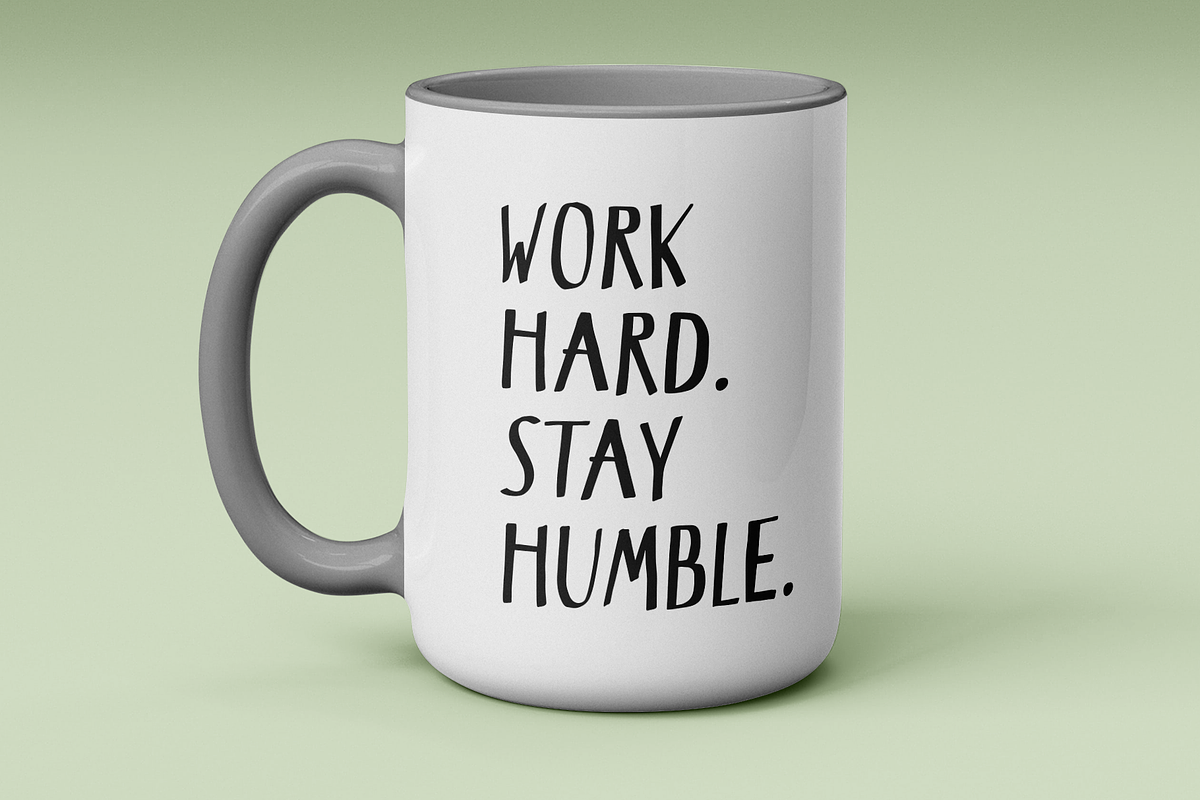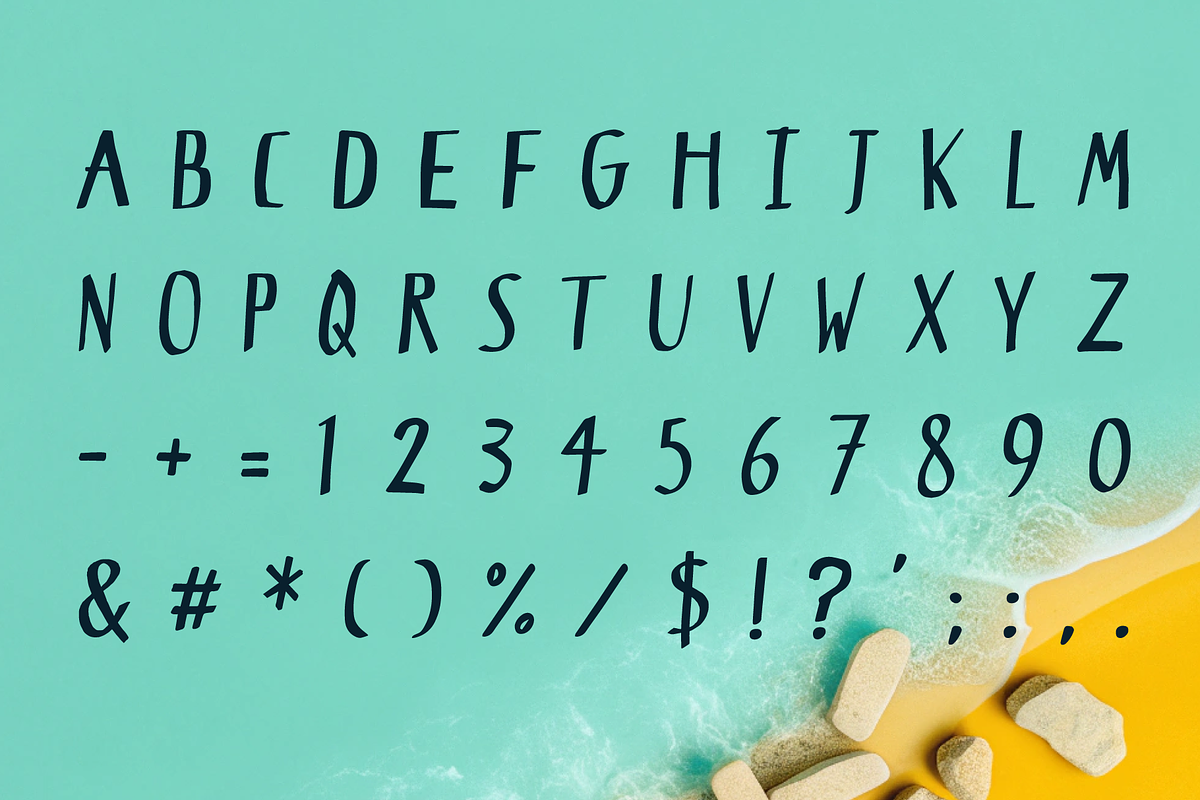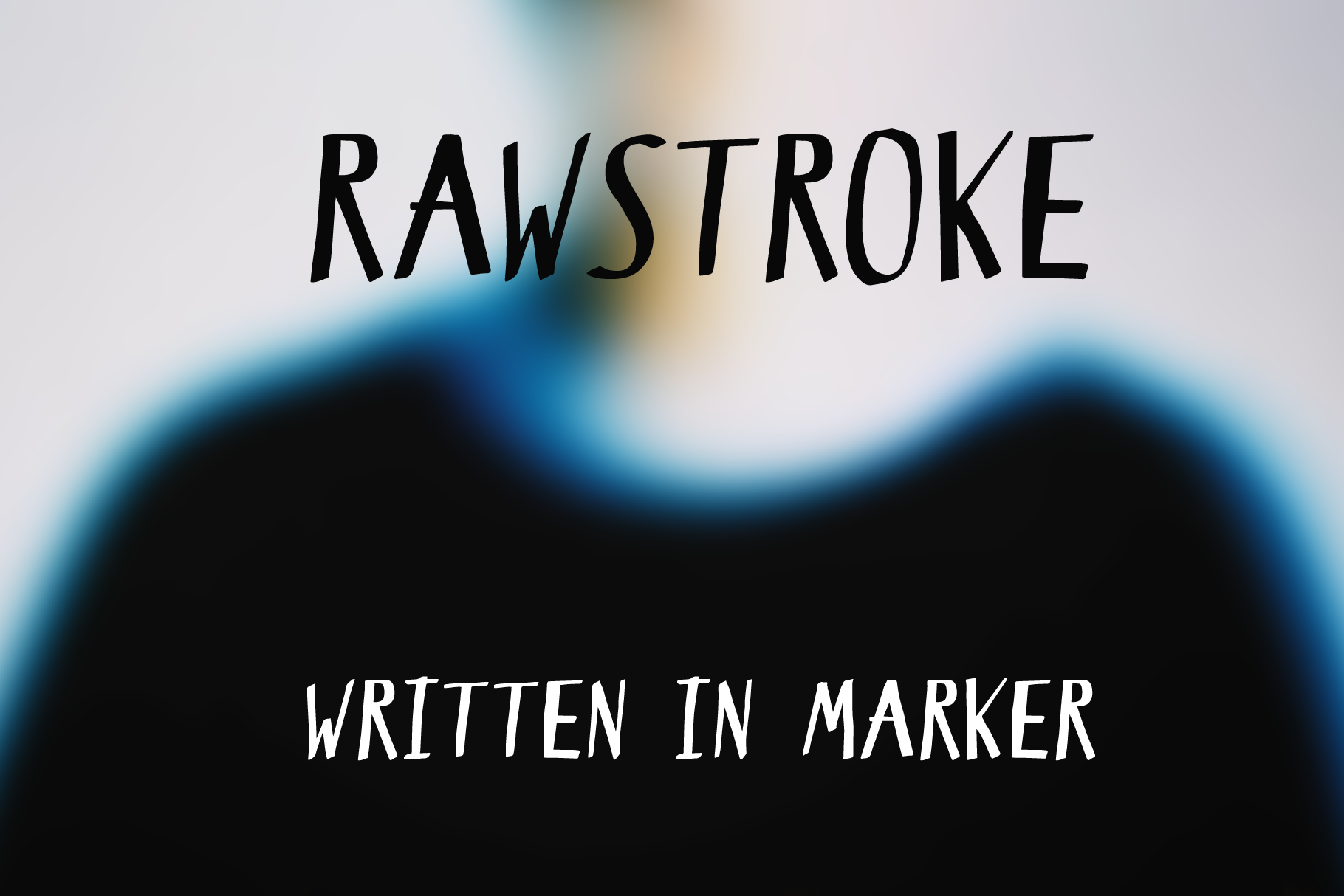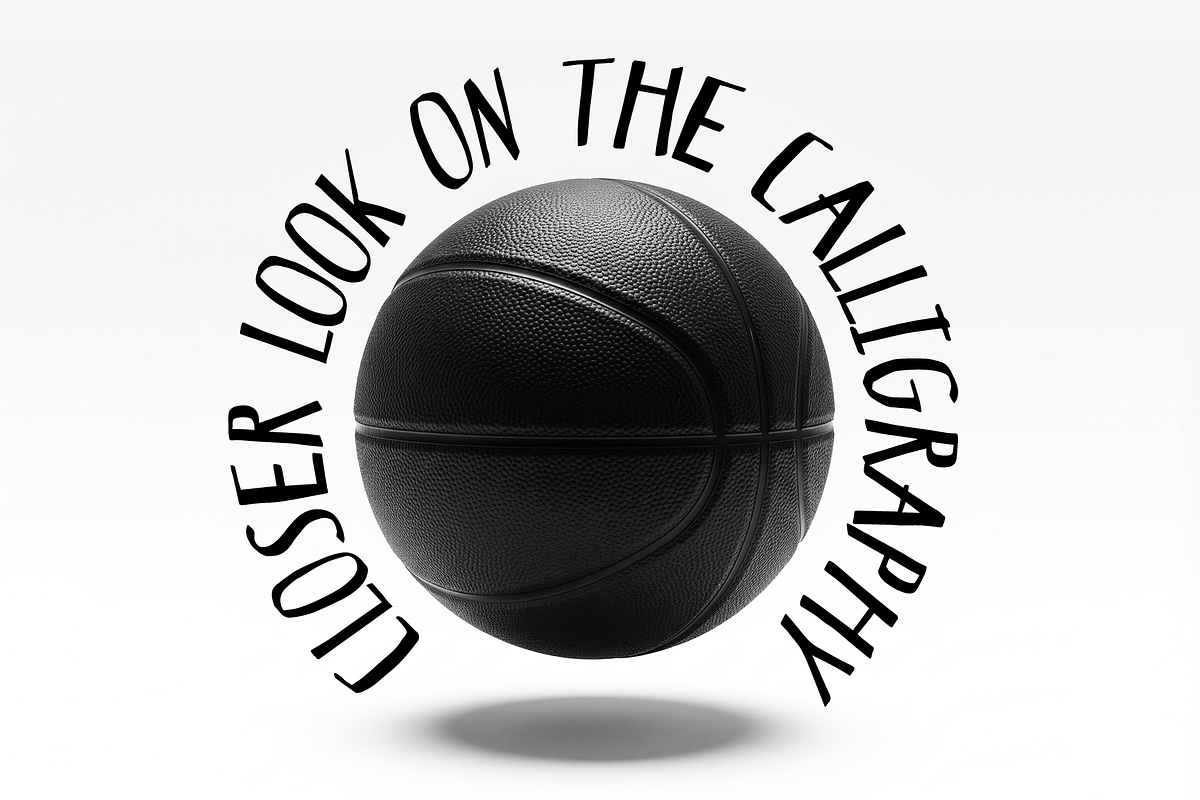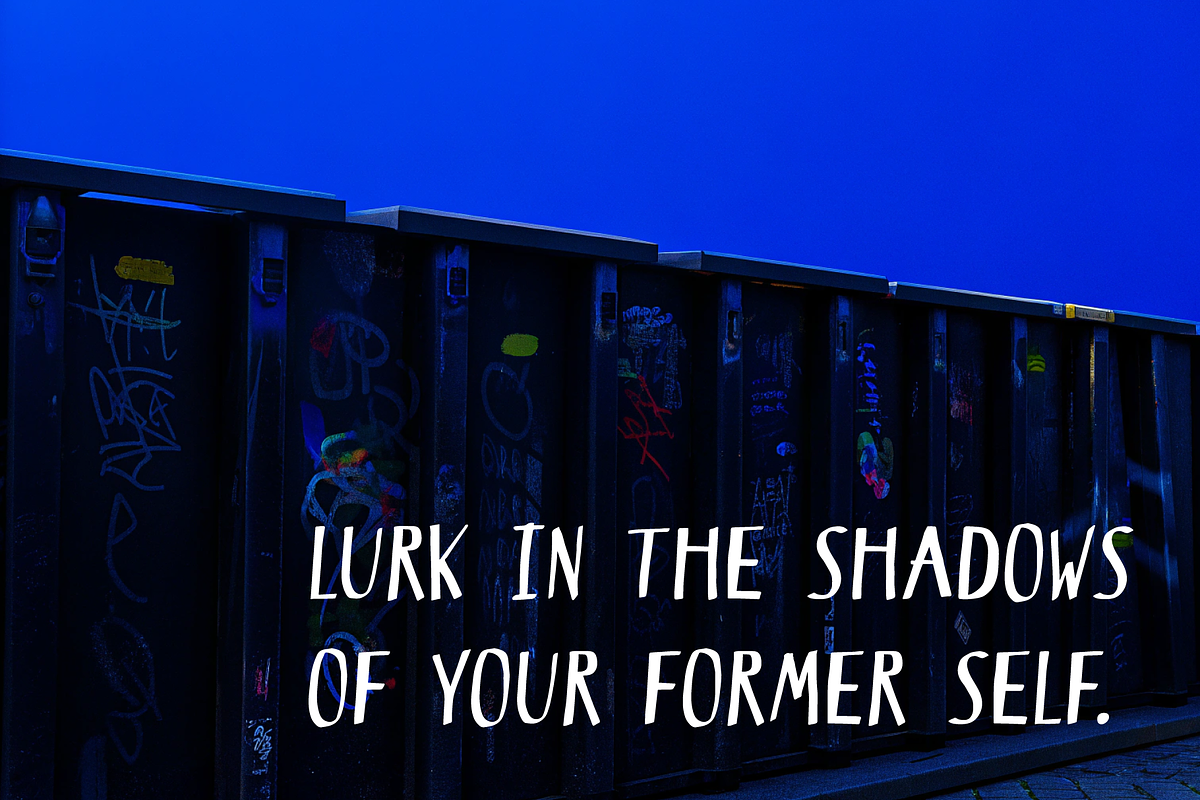
Rawstroke — Handcrafted Font
Bring a touch of personality and effortless charm to your designs with Rawstroke, a modern hand-drawn sans serif that combines casual energy with clean readability. Each letter was drawn by hand to preserve the natural rhythm and organic imperfections of real ink strokes — perfect for adding a human touch to digital design.